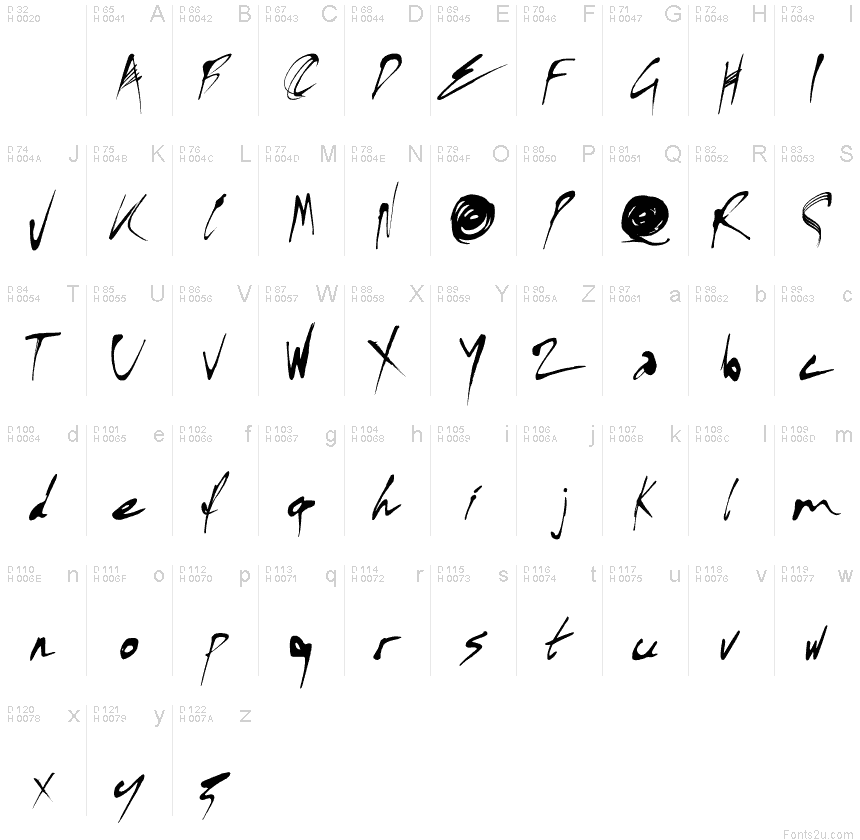
Kylie X Font by Rocco is a free graffiti script with frantic, sharply slashed letterforms. The strokes swing between broad black wedges and hairline-thin scratches, with abrupt overlaps and open gaps that make the writing look improvised rather than polished.
Underground music and streetwear match its restless marks especially well. Concert posters, skate merchandise, album artwork, and youth-focused event graphics all benefit from the same raw speed and confrontational edge.